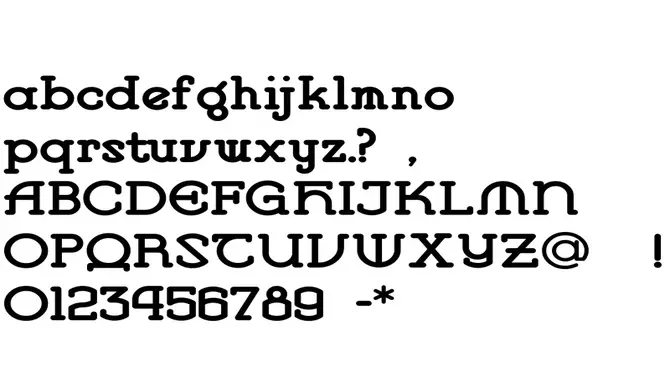
A Disney font is a typeface that takes inspiration from the distinctive Disney brand. It showcases playful and whimsical lettering similar to Disney movie titles and logos.
People often use the Disney font for creating invitations, crafts, and other creative projects. Numerous versions of the Disney font can be found online, which can be downloaded and installed in programs like Word.
We will dive into the world of Disney font word and show you how to use them in Word. So get ready to sprinkle some pixie dust on your next project as we explore the wonderful world of Disney fonts together.
Top 7 Best Disney Fonts For Magical Graphic Design
With its whimsical and enchanting style, this font is perfect for creating captivating designs. Whether you’re designing invitations, posters, or even personalized gifts, the Disney font can bring that Disney magic to your projects.
There are plenty of Disney fonts, each with its unique style. From the classic and recognizable Waltograph to the retro and fancy Retrobox, every design has a Disney font. Explore the world of Disney fonts and unlock your creativity today. Here are some:
1. Mickies – A Fun Disney-Like Font
Mickies is a playful and whimsical typeface that truly embodies the magical spirit of Disney. With its bold, rounded letters and exaggerated curves, Mickies brings beloved Disney characters like Mickey Mouse to mind.
This font is an excellent choice for adding a touch of magic to your designs, whether you’re creating birthday invitations, party decorations, or enchanting graphics. Mickies is easy to download and install, making it ideal for design programs like Microsoft Word or Photoshop. Unleash your creativity and watch your projects come to life with the delightful Mickies font.
2. Colores Font Duo
Colores Font Duo is a captivating font duo that combines a playful script font with a bold, block letter font. With elegant swirls and loops inspired by the classic Disney logo, the script font adds sophistication to designs.
The block letter font brings a bold and energetic vibe, perfect for eye-catching headlines and titles. Whether designing posters, invitations, or creative projects, the Colores Font Duo leaves a lasting impression. This versatile font duo adds a touch of Disney magic to your designs.
3. Waltograph (Original Disney Logo Font)
Waltograph is a whimsical and playful font inspired by the handwriting of Walt Disney himself. It captures the magic and nostalgia of the Disney brand, making it the perfect choice for creating invitations, party decorations, or any graphic design project with a Disney theme.
Whether designing a poster for a Disney-themed party or creating a graphic for a children’s book, Waltograph’s enchanting style and unique charm will bring your designs to life. Install this font in Microsoft Word or Photoshop and unleash your creativity with the original Disney logo font.
4. Retrobox — A Retro Fancy Font
With its bold and playful lettering and decorative elements, Retrobox is a unique and whimsical font that captures the nostalgic feel of classic Disney designs. This font adds a touch of whimsy to your designs, perfect for creating eye-catching posters, invitations, and other graphic design projects.
Whether you’re designing a Disney-themed party invitation or a nostalgic logo, Retrobox is a great choice. It brings a touch of magic and nostalgia to your projects. Download Retrobox font for free and use it in Microsoft Word or any other design software. Create enchanting designs that evoke the spirit of vintage Disney with Retrobox.
5. Runtoys
Run toys is a popular font inspired by the enchanting world of Disney. With its playful and whimsical lettering, Runtoys is perfect for adding a touch of magic to your designs. Whether planning a Disney-themed party or creating invitations for a children’s event, Runtoys is the ideal choice.
This unique font can be downloaded and installed on your computer for use in various design software programs, including Microsoft Word. Use Runtoys to create eye-catching posters, banners, or any other creative projects that need a little Disney flair.
6. Mouse Memoirs Font
Add a touch of magic to your designs with Mouse Memoirs, a popular font inspired by the iconic character Mickey Mouse. With its playful and whimsical lettering, this font brings a touch of Disney magic to invitations, posters, and digital graphics.
Easily downloadable for Microsoft Word and other design software, Mouse Memoirs captures the essence of Disney’s charm. Make your designs shine with this nostalgic and fun font.
5.Is It Even A Disney Font?
Ans: Yes, there is an official Disney font called “Waltograph.” It’s a free font inspired by Walt Disney’s handwriting that can be downloaded and used in various programs. Adding the Disney font to your documents or designs can bring a sense of magic and nostalgia.